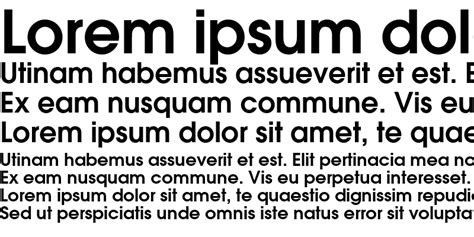
Itc Avant Font. Web itc avant garde gothic® condensed bold oblique. Web itc avant garde swa.
Web itc avant garde gothic® condensed bold oblique. Herb lubalin devised the logo concept and its companion headline typeface, and then he and tom. Download itc_ avant_ garde for free, view sample text, rating and more on fontsgeek.com. Itc avant garde gothic font family was designed by tom carnase, erich gschwind, christian mengelt, edward benguiat, andré gürtler, herb lubalin and published by itc. Itc avant garde gothic was designed by herb lubalin and tom carnase in 1970. 4 styles uncategorized 0 downloads. Web itc avant garde swa. Web complete family of 20 fonts: Web download itc avant garde gothic for free, view sample text, rating and more on fontsgeek.com Web itc avant garde gothic is a geometric sans serif font family based on the logo font used in the avant garde magazine.
Web itc avant garde gothic® condensed bold oblique. Web itc avant garde swa. Download itc_ avant_ garde for free, view sample text, rating and more on fontsgeek.com. Web complete family of 20 fonts: Itc avant garde gothic was designed by herb lubalin and tom carnase in 1970. Web download itc avant garde gothic for free, view sample text, rating and more on fontsgeek.com Herb lubalin devised the logo concept and its companion headline typeface, and then he and tom. Web itc avant garde gothic® condensed bold oblique. Web itc avant garde gothic is a geometric sans serif font family based on the logo font used in the avant garde magazine. 4 styles uncategorized 0 downloads. Itc avant garde gothic font family was designed by tom carnase, erich gschwind, christian mengelt, edward benguiat, andré gürtler, herb lubalin and published by itc.